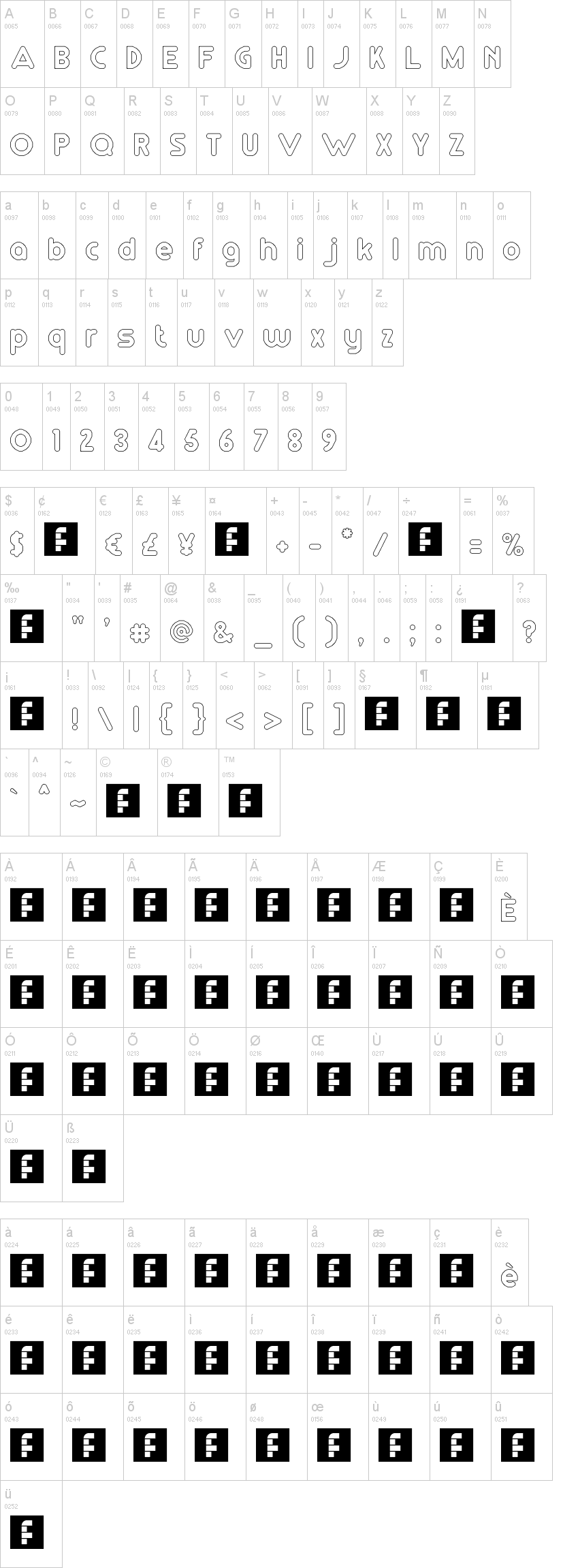
rm_playtime_medium.ttfrm_playtime_bold.ttfrm_playtime_solid.ttfrm_playtime_3d.ttfNote of the authorAll the Playtime family can be superimposed upon one another to provide a variety of effects.